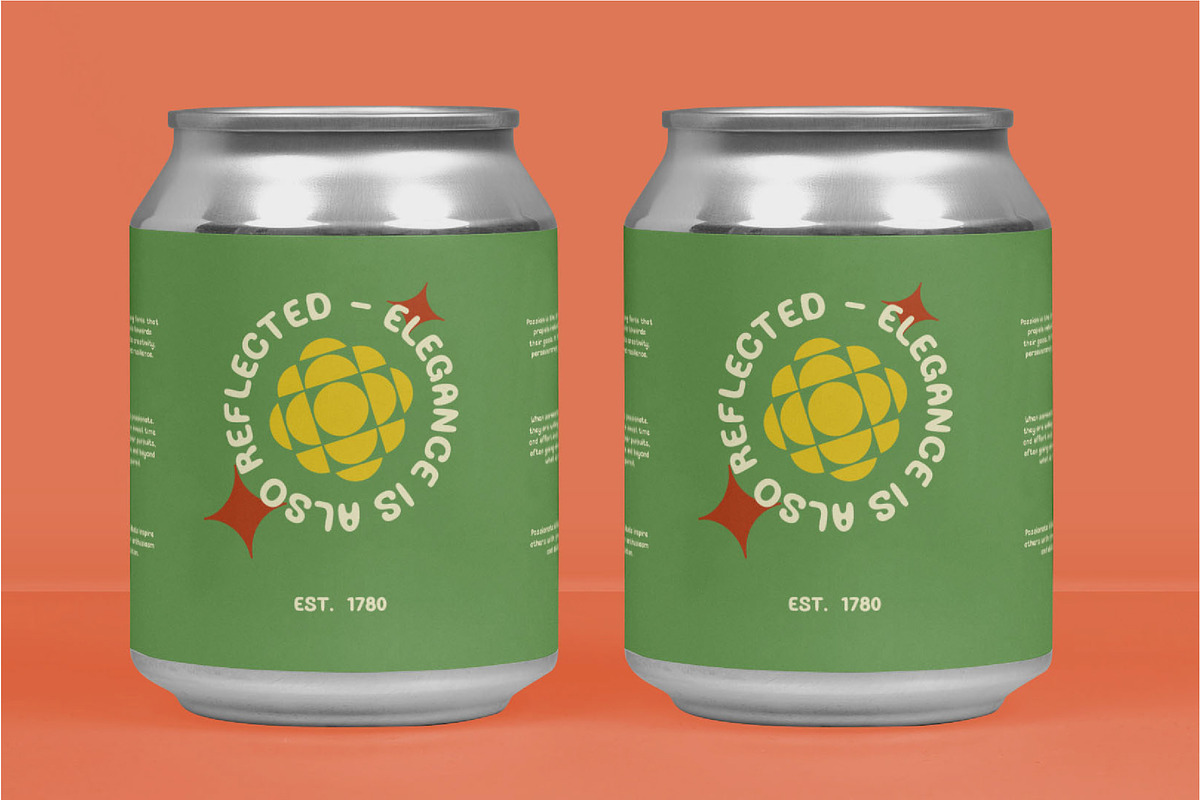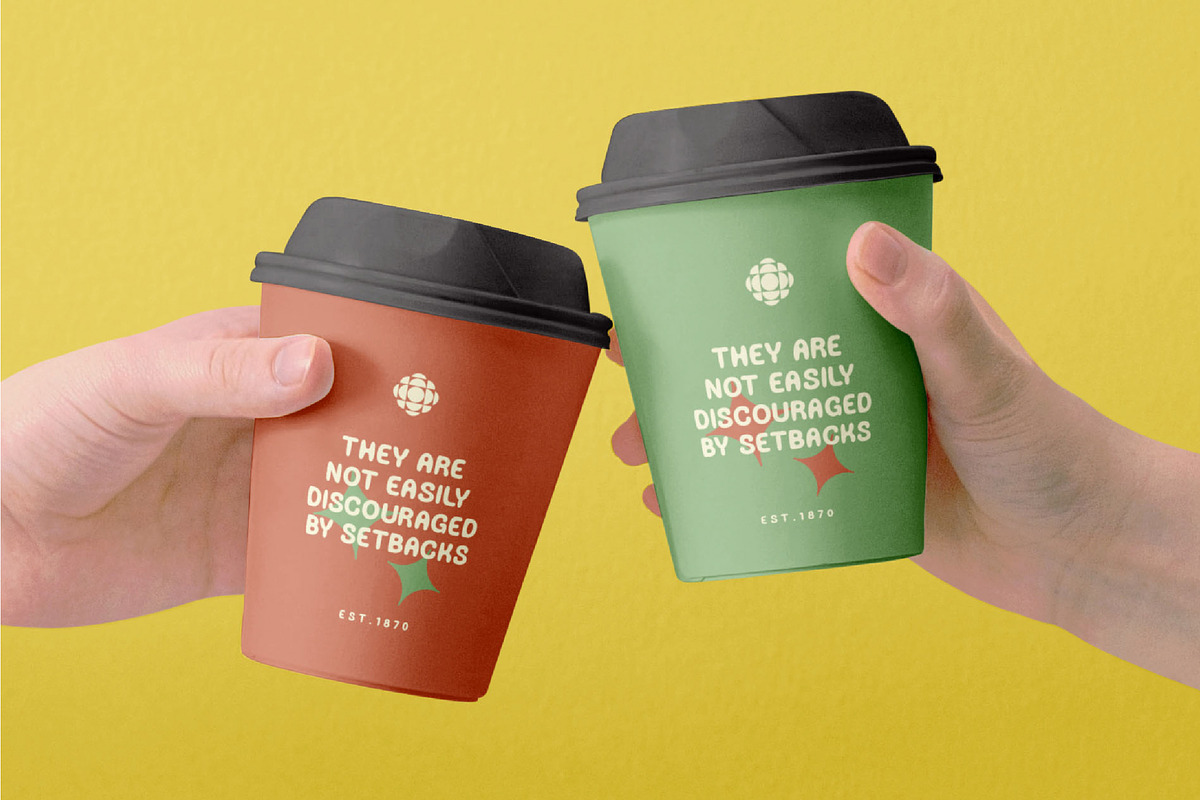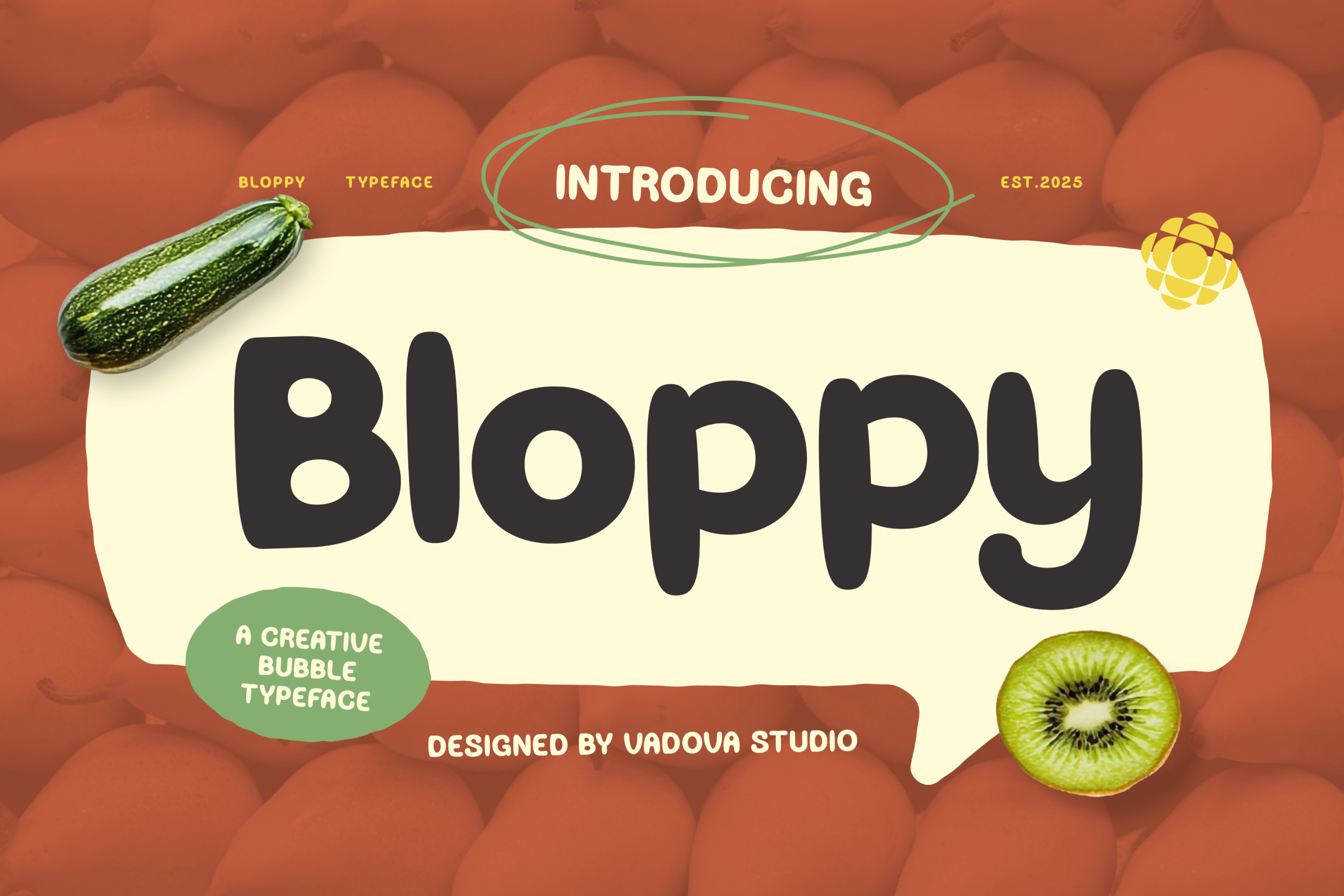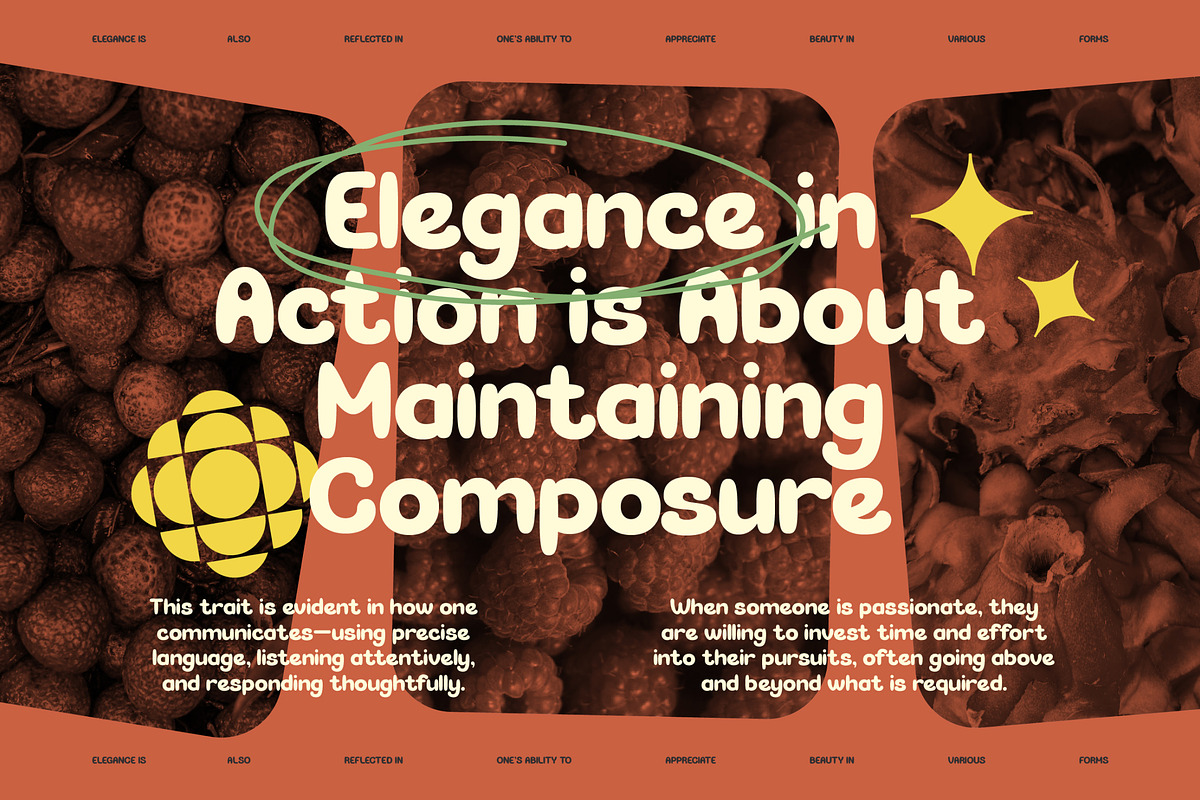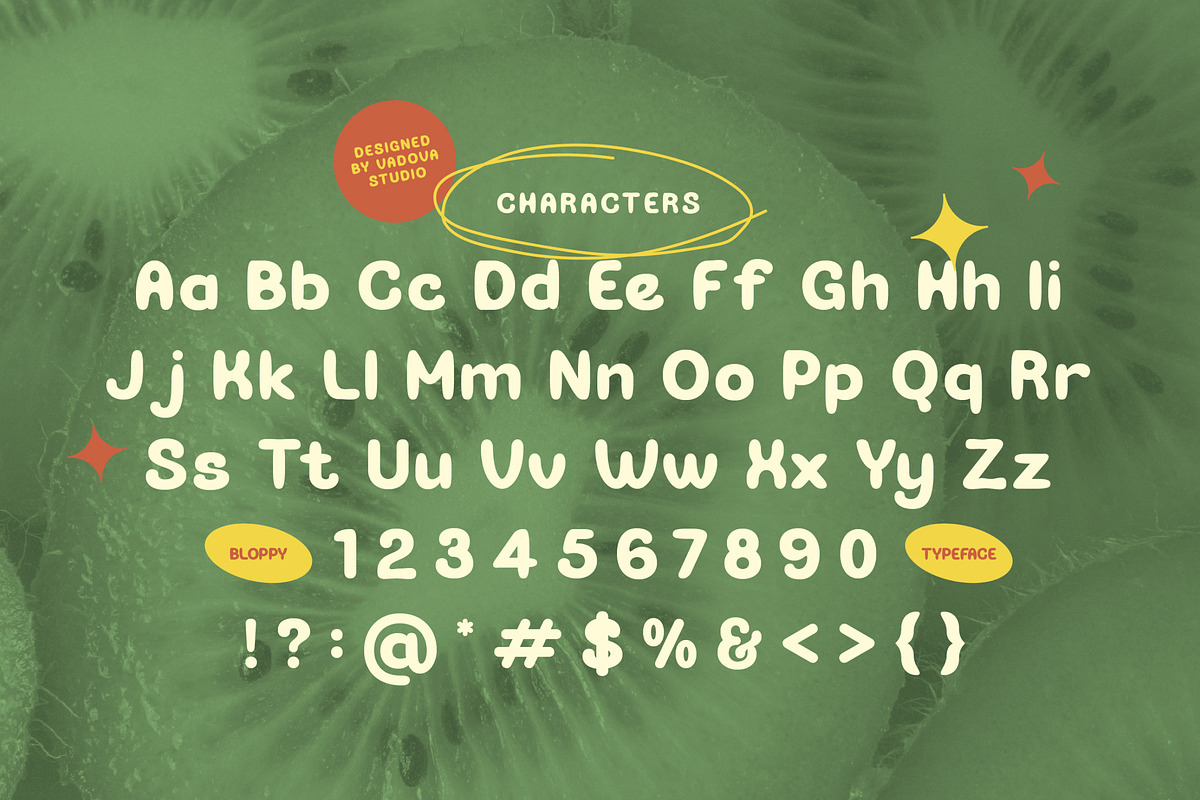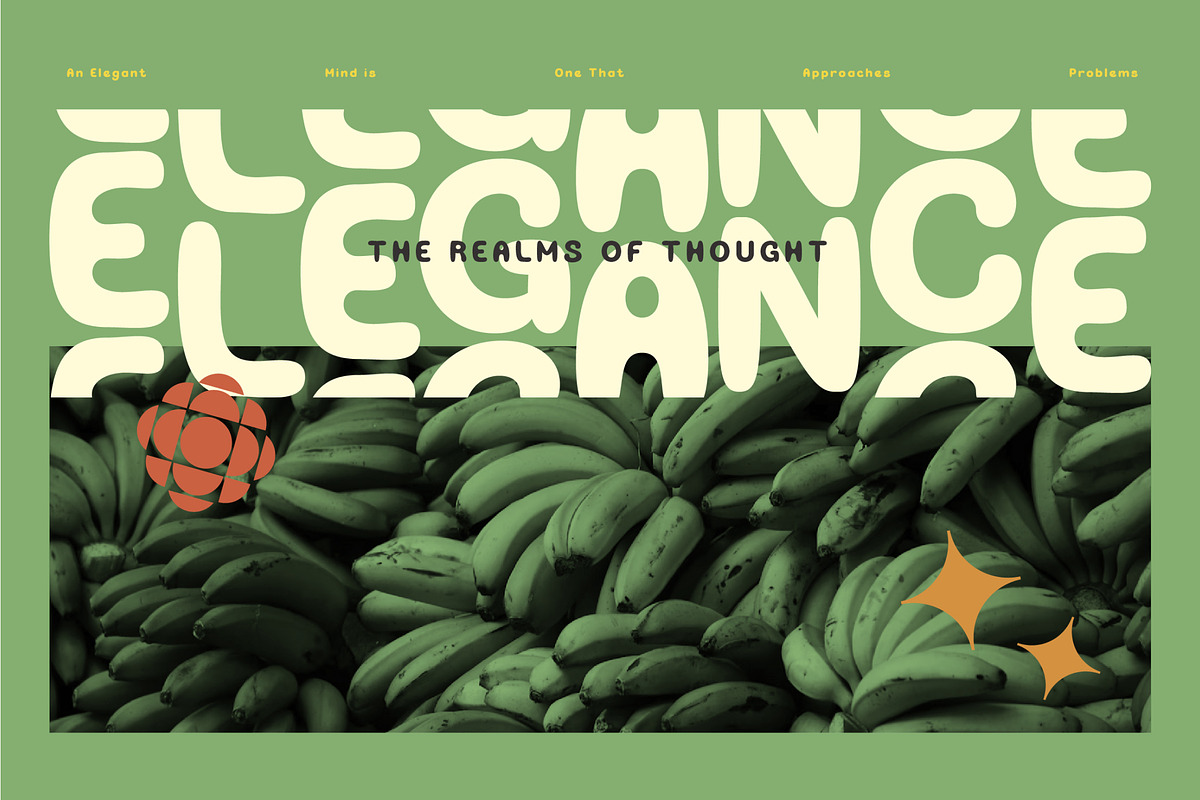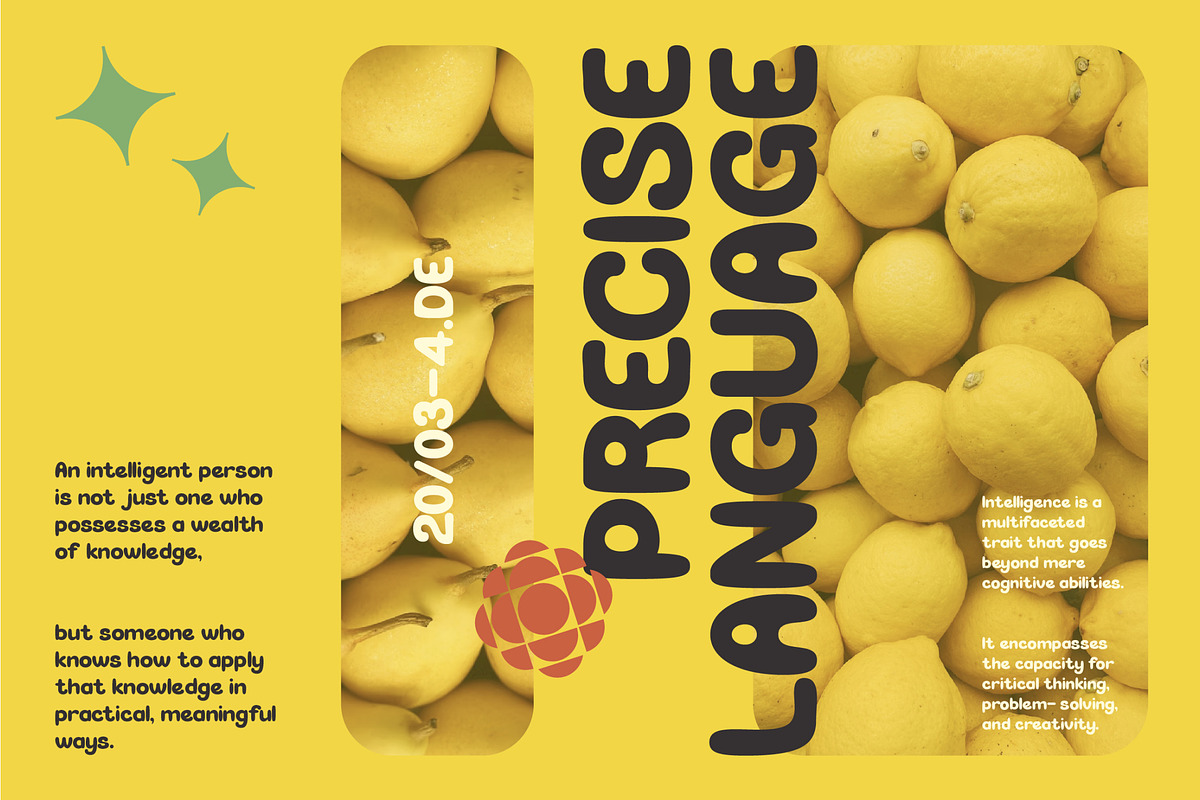
Bloppy – Creative Bubble Typeface
Bloppy is a fun and creative bubble typeface with soft rounded edges and playful energy. Its cheerful design brings a sense of joy, friendliness, and approachability, making it the perfect font for projects that want to feel lighthearted and fun.
From kids’ books, snack packaging, branding, to social media visuals, Bloppy adds a bold yet friendly touch that instantly grabs attention.
Highlights
Fun and bubbly display design
Rounded, friendly, and approachable style
Perfect for food, kids, and lifestyle projects
Works great for playful branding & packaging
Easy-to-use and highly versatile
Best Uses
Kids’ Books & Posters – playful storytelling
Snack & Food Packaging – friendly, bold look
Party Invitations & Event Flyers – joyful design
Cartoon & Comic Titles – fun bubble style
Lifestyle Branding & Merch – cheerful vibe
Social Media Content – eye-catching playful typography
Bring joy and playfulness to your projects with Bloppy – Creative Bubble Typeface, the perfect choice for fun and creative designs.